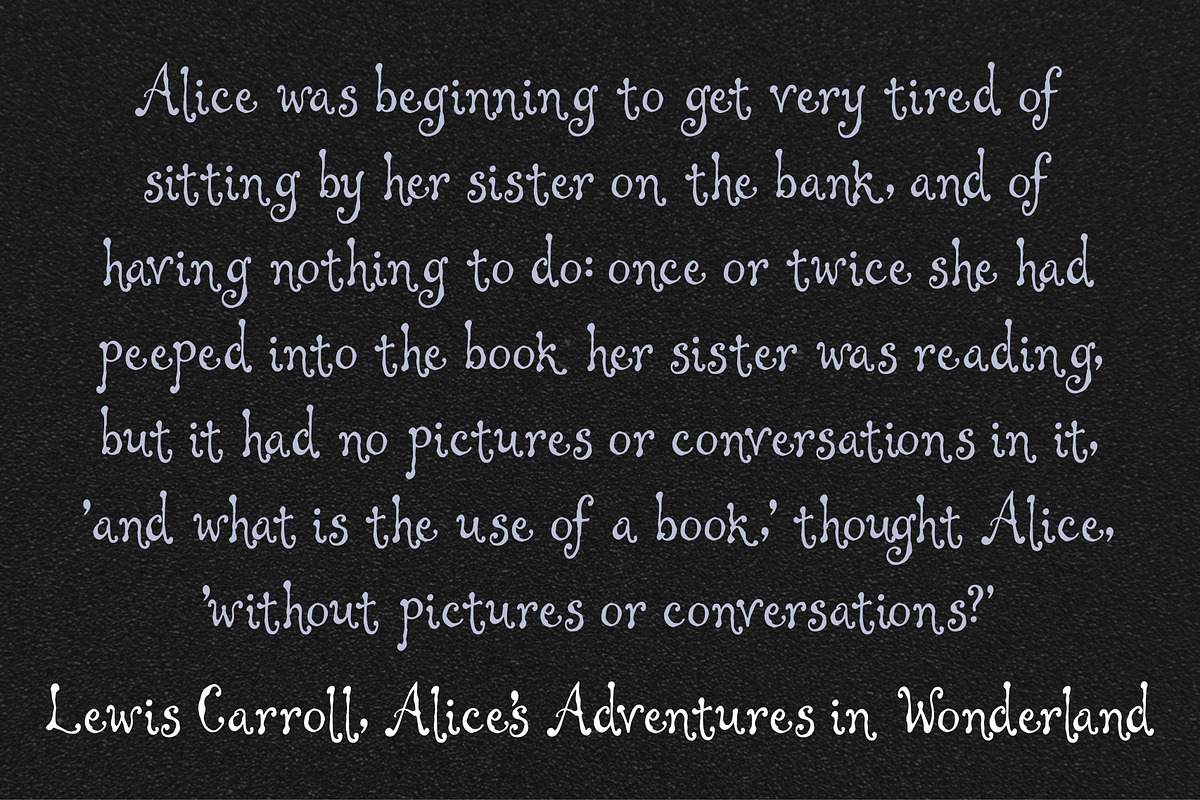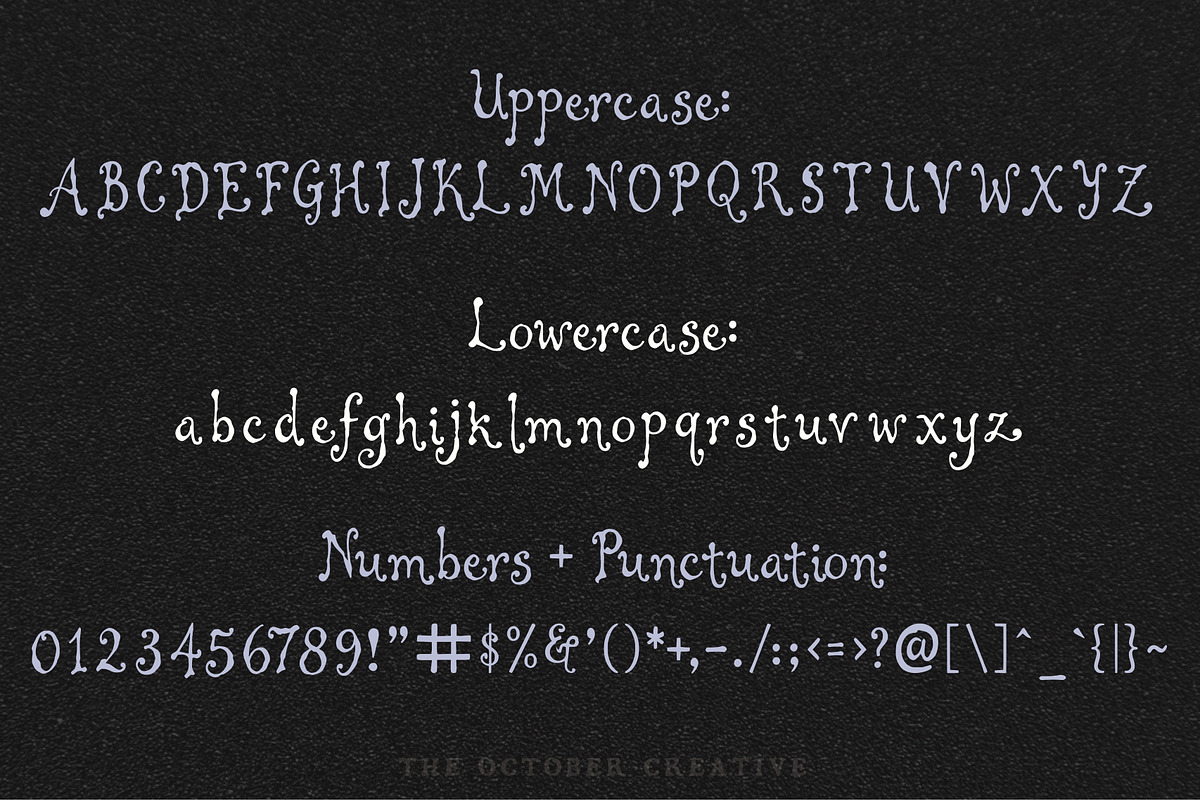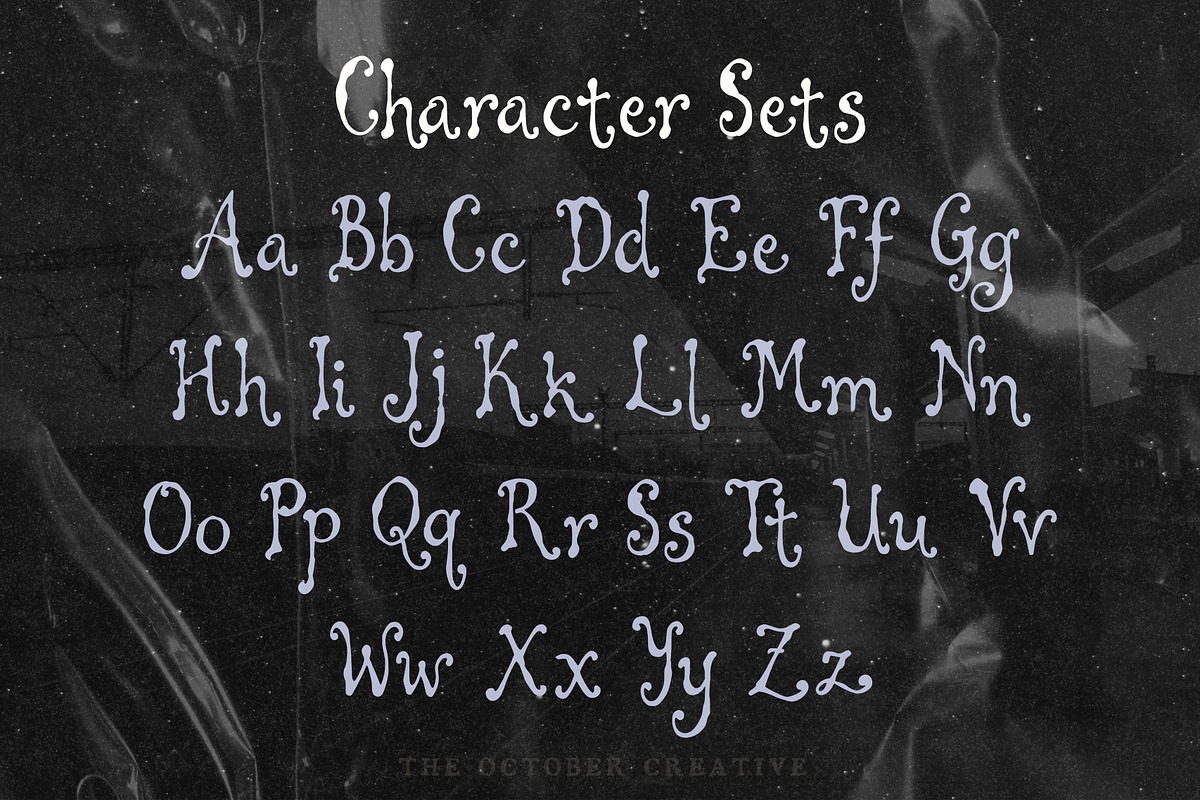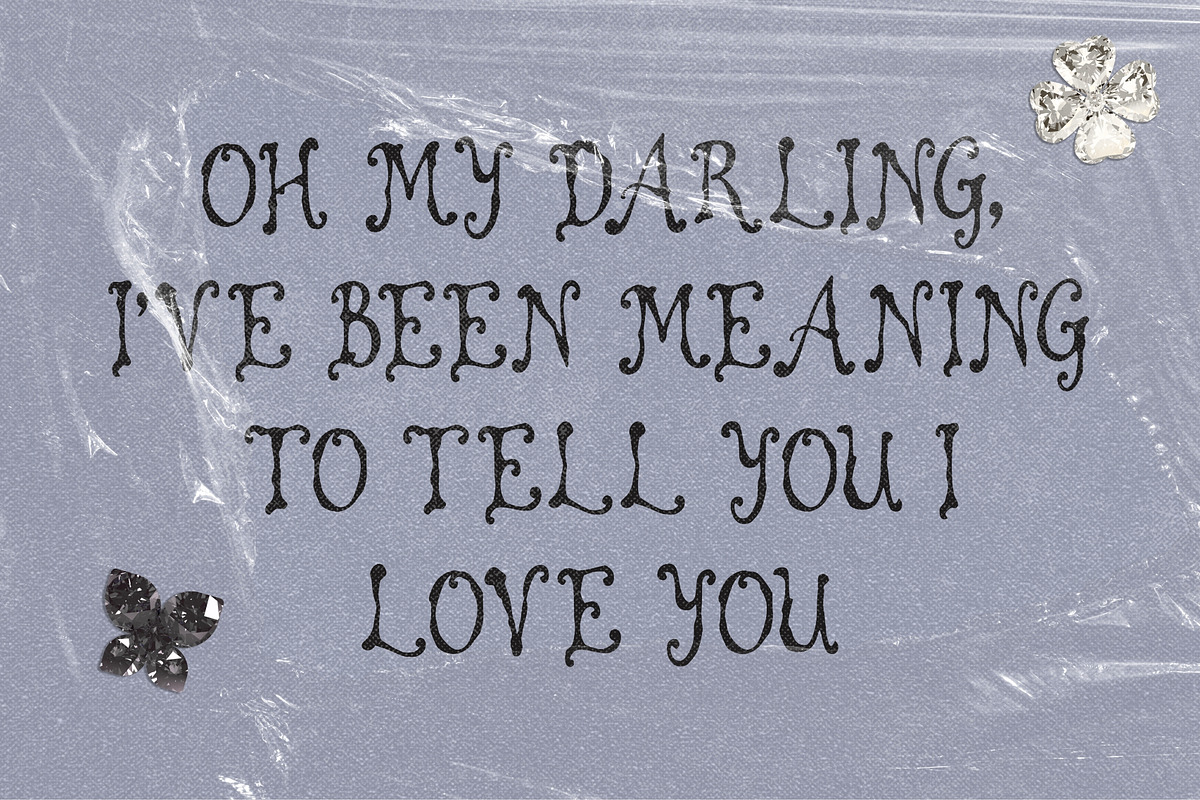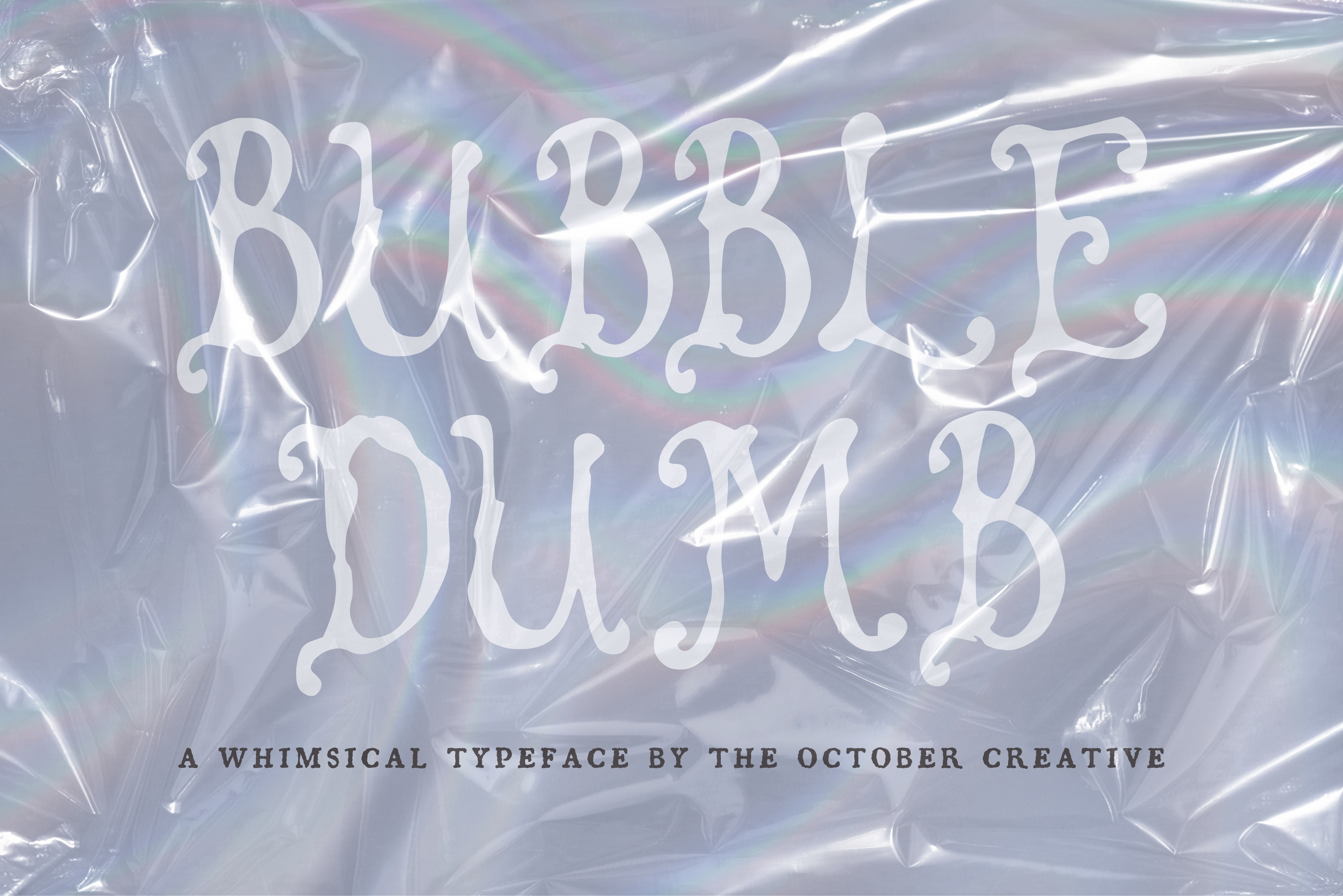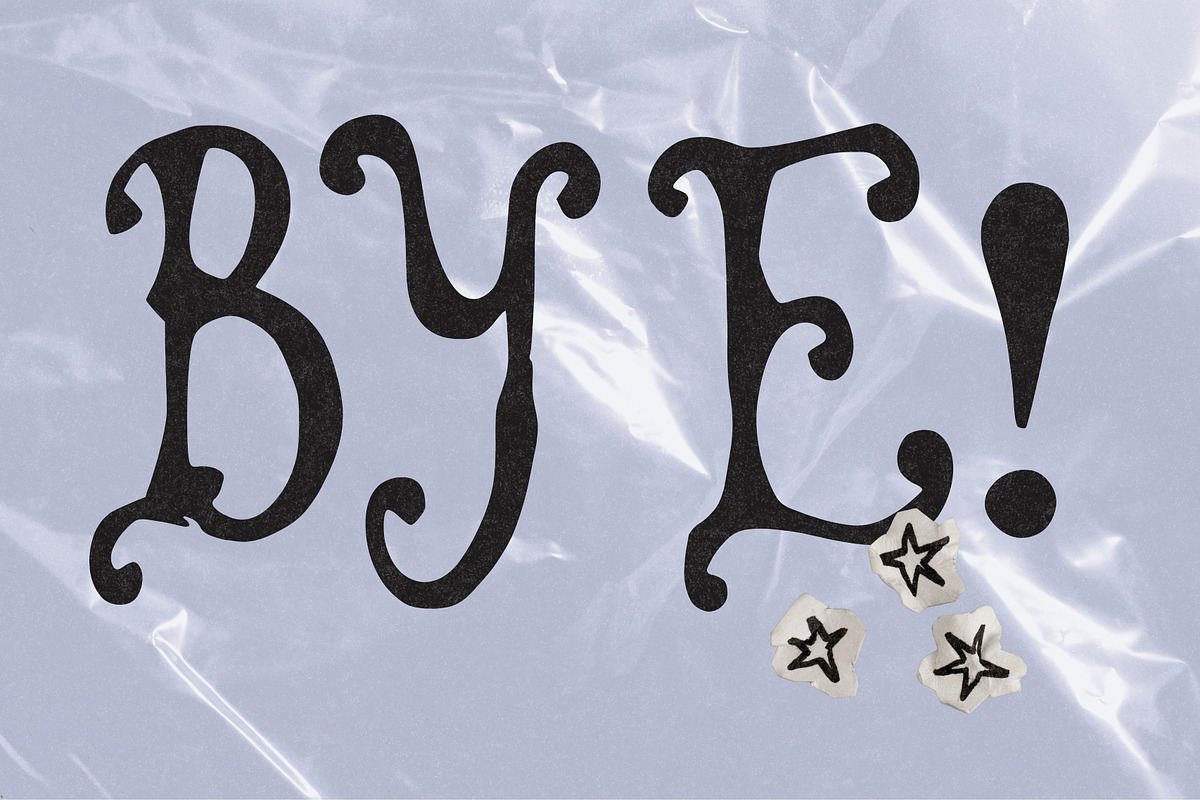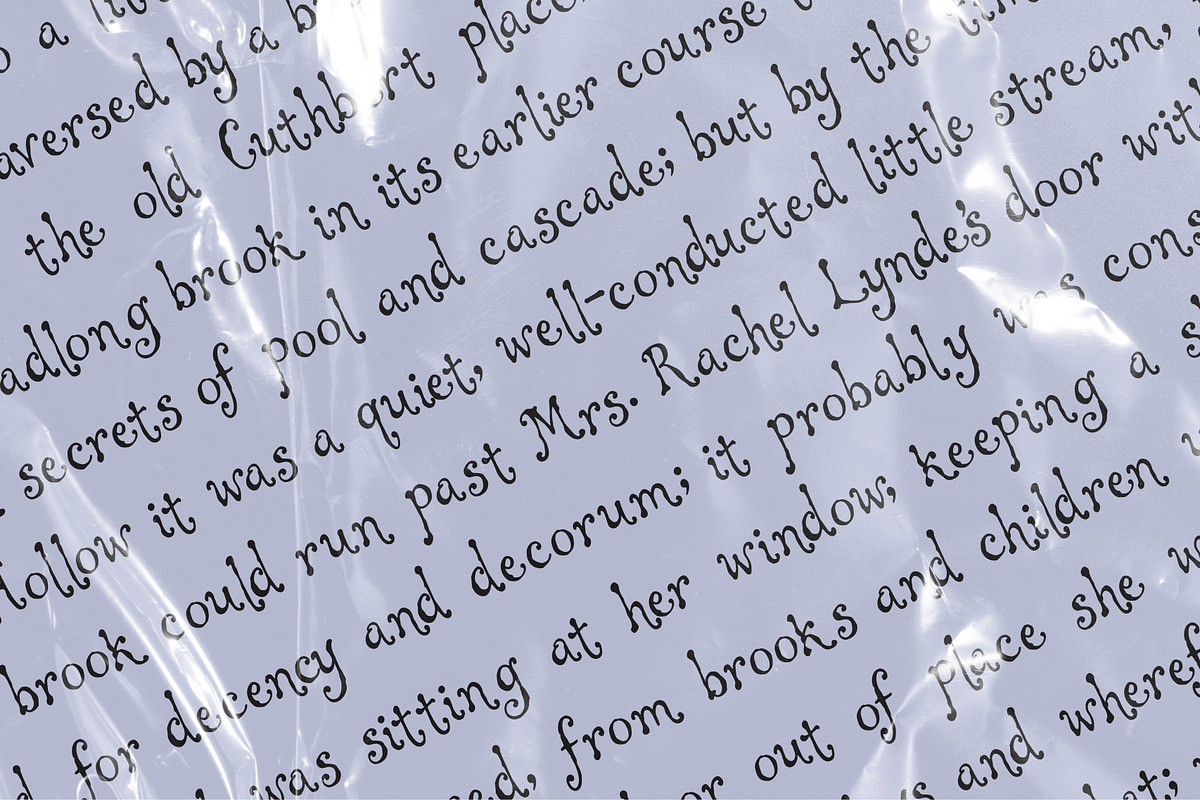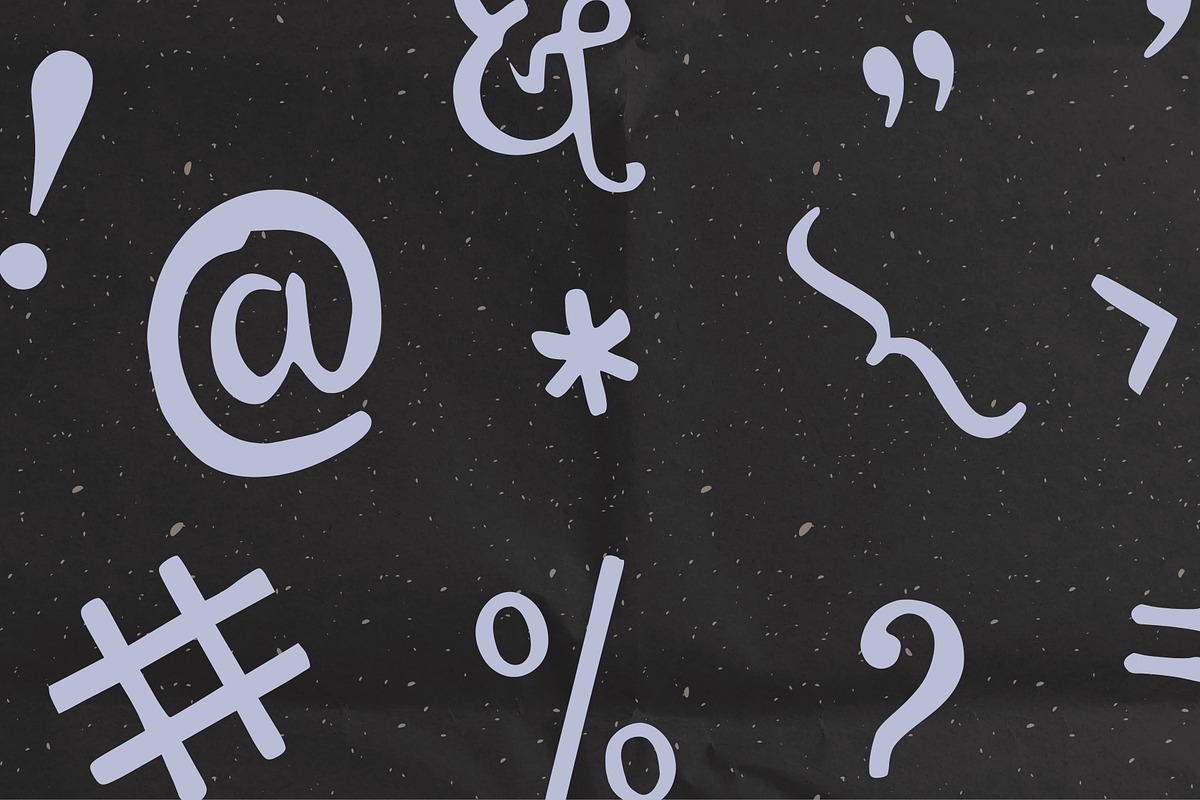
Bubbledumb Bubbly Display Font
Bubbledumb is a bubbly display font with thick round strokes, ball ends, and fat closed counters. It fits birthday invitations, party banners, sticker sheets, and kids' event signage.
CHARACTER SET
Uppercase A to Z, lowercase a to z, numerals 0 to 9, and every standard keyboard punctuation mark and symbol: ! " # $ % & ' ( ) * + , - . / : ; < = > ? @ [ \ ] ^ _ ` { | } \~
Curly quotes and apostrophes (‘ ’ “ ”), en and em dashes, an ellipsis, and a bullet.
Accented letters: À Á Â Ã Ä Å Ç È É Ê Ë Ì Í Î Ï Ñ Ò Ó Ô Õ Ö Ù Ú Û Ü and their lowercase forms.
LANGUAGES SUPPORTED
English, plus the accented vowels, Ñ, and Ç used in names and everyday words in Spanish, French, Italian, Portuguese, German, and Dutch. Not included: ß, Æ, Ø, Œ, and the upside-down ¿ and ¡.
SPECIAL CHARACTERS